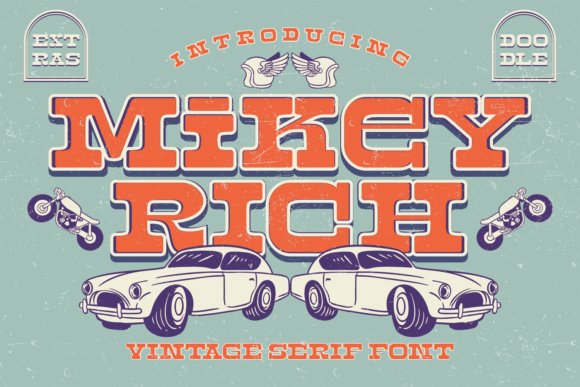
Embark on a Nostalgic Journey with Mikey Rich Font
Prepare to be captivated by Mikey Rich Font, a vintage serif typeface that exudes timeless elegance and classic charm. With its refined and sophisticated appearance, Mikey Rich Font is the perfect choice for projects that seek a touch of nostalgia and sophistication.
Mikey Rich Font's characters are meticulously crafted with thick and thin strokes, creating a pleasing contrast that enhances the font's vintage aesthetic. This attention to detail ensures that your designs capture the essence of yesteryear while maintaining a modern and stylish edge.
Unlock Endless Creative Possibilities
With Mikey Rich Font, your designs will transcend the ordinary and enter a realm of timeless beauty. Whether you're creating logos, branding materials, posters, or invitations, Mikey Rich Font will elevate your designs and leave a lasting impression on your audience.
Let your imagination run wild as you explore the vast array of possibilities that Mikey Rich Font offers. Its versatility knows no bounds, allowing you to effortlessly create designs that resonate with your target audience and leave them longing for more.
Effortless Access to Amazing Glyphs and Ligatures
Mikey Rich Font comes PUA encoded, providing seamless access to an array of captivating glyphs and ligatures. Unleash your creativity as you incorporate these unique elements into your designs, adding an extra layer of charm and sophistication.
Transform your designs into captivating works of art with Mikey Rich Font. Its vintage serif style, combined with the ease of use of PUA encoding, makes it the perfect choice for designers seeking a touch of timeless elegance. Download Mikey Rich Font today and embark on a creative journey that will leave you inspired and exhilarated.